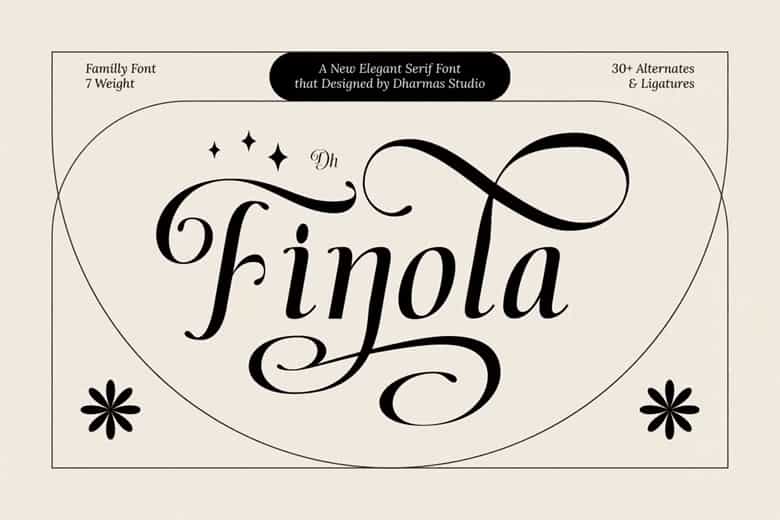
The serif font Dh Finola is luxurious and is based on the beauty of the Baroque architecture and classical calligraphy. Dh Finola has the fine flowing strokes with its high-contrast high-quality swashes, expressing lavish affinities with refined and stylish character, which make it suited to wedding designs, stylish branding, editorials, fashion, and luxurious packaging. Dh Finola is available in 7 classy fonts Thin, Extra Light, Light, Regular, Medium, Semi Bold and Bold, giving the designers the complete freedom to control the tone and visual effect.